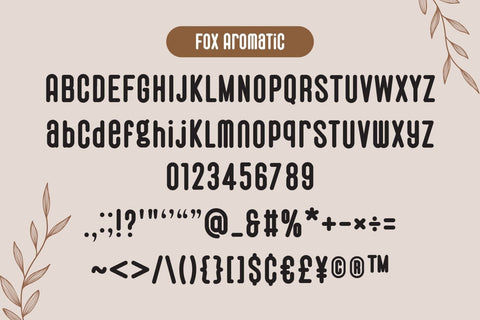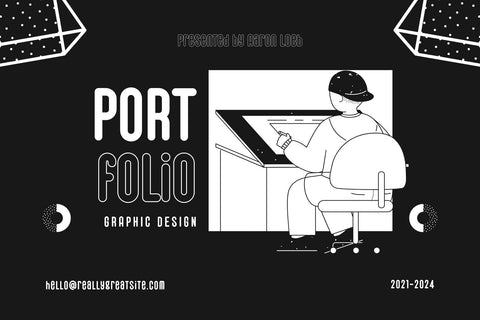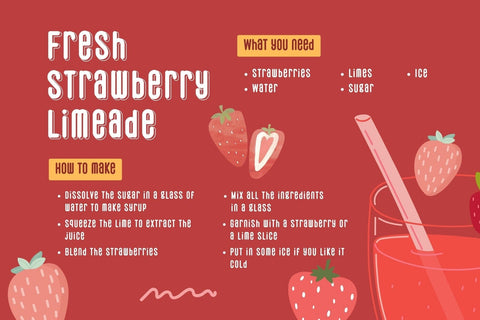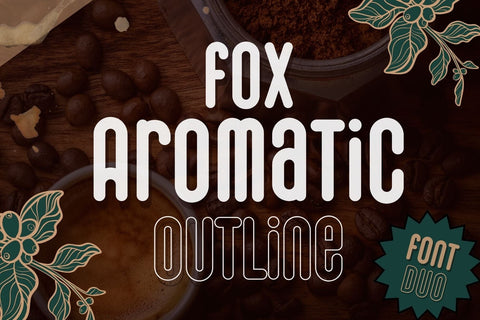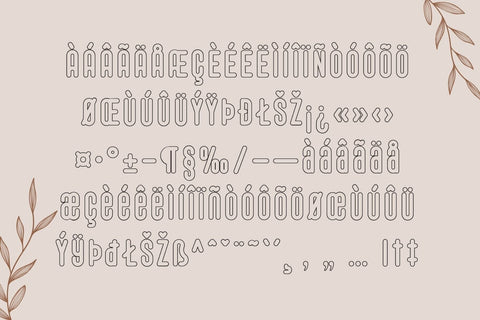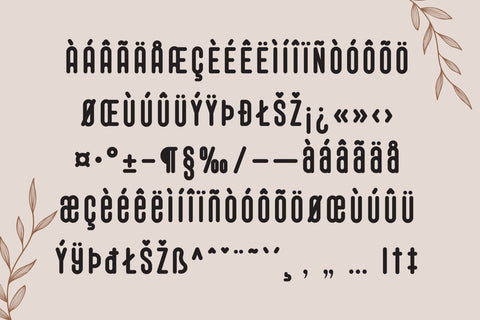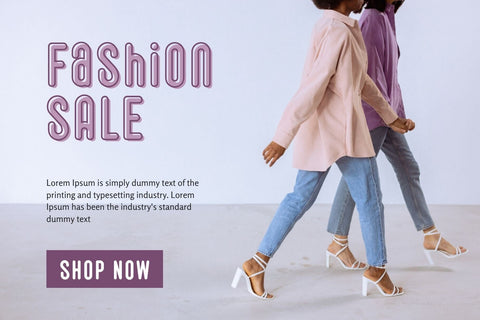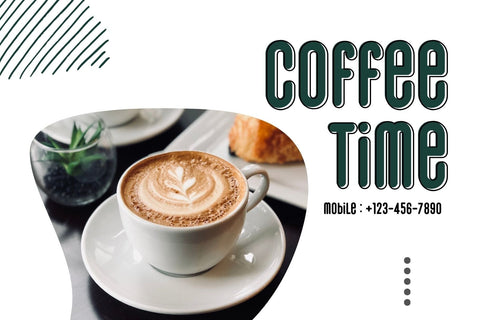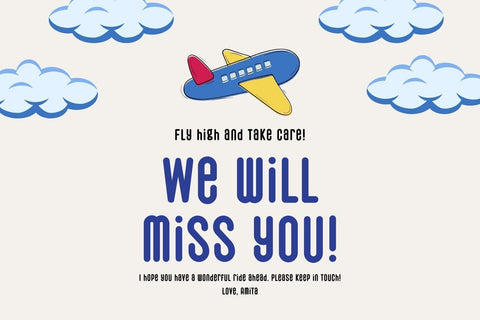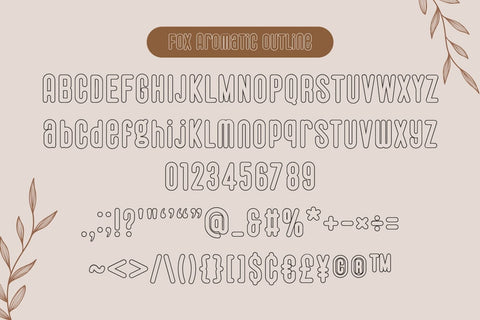
Fox Aromatic Font Duo
Fox Aromatic and Fox Aromatic Outline fonts are a cool and playful display font that adds a captivating and energetic touch to your designs. Perfect for use in publications, menus, logos, business cards, or even printed on t-shirts, these fonts exude uniqueness. Its main feature is its vibrant and expressive design, allowing you to create attention-grabbing headlines, t-shirt typography, banners, product labels, and more.